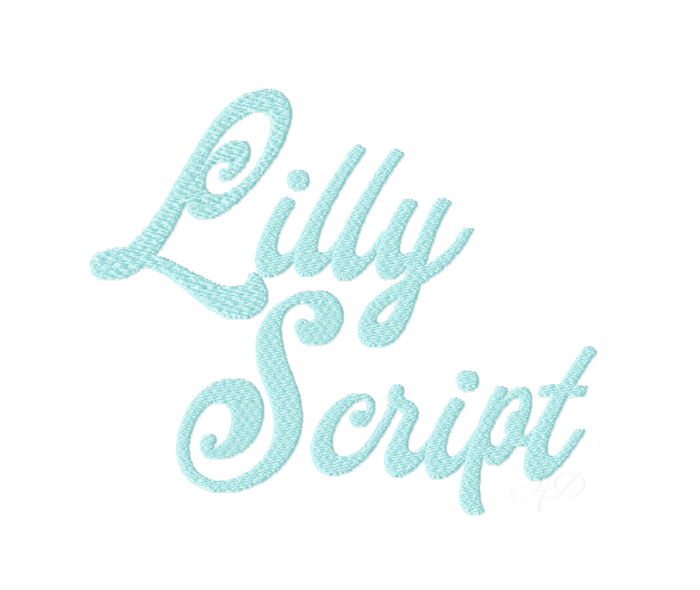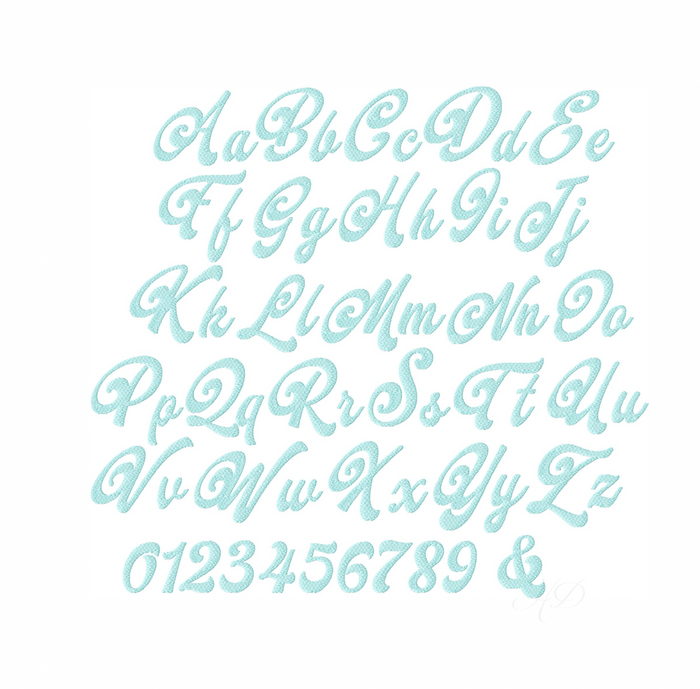
Lilly Script Fill Shadow Embroidery Font 4x4
Enhance your crafting projects with the Lilly Script Fill Shadow Embroidery Font. This versatile fill stitch embroidery font includes uppercase and lowercase letters from A-Z, numbers 0-9, and an & sign, allowing you to personalize any design. Choose from multiple sizes—3/4", 1", 1.5", and 2"—to suit your needs.